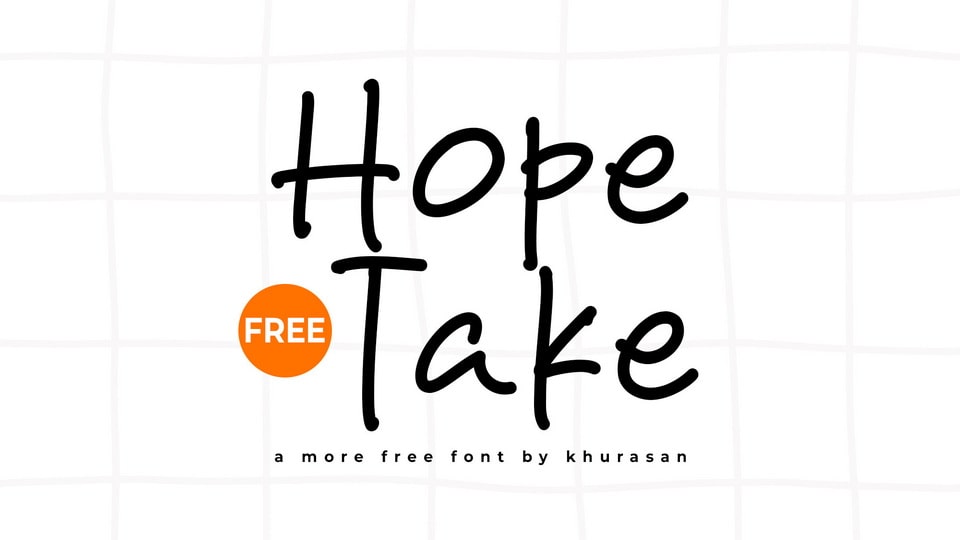
Download Hope Take font, a smooth and spirited handwritten typeface that combines clarity with an expressive touch. Its relaxed letterforms and soft curves create a calm and encouraging aesthetic.